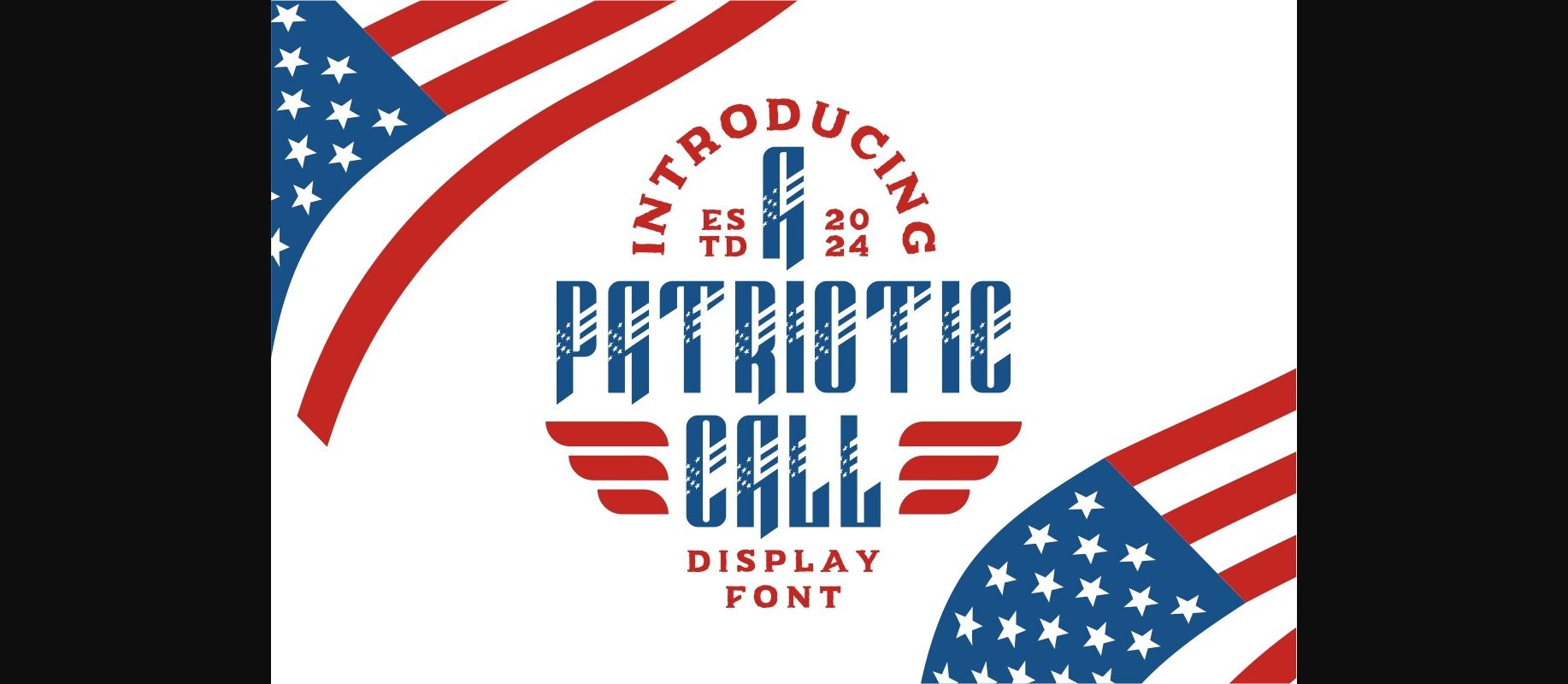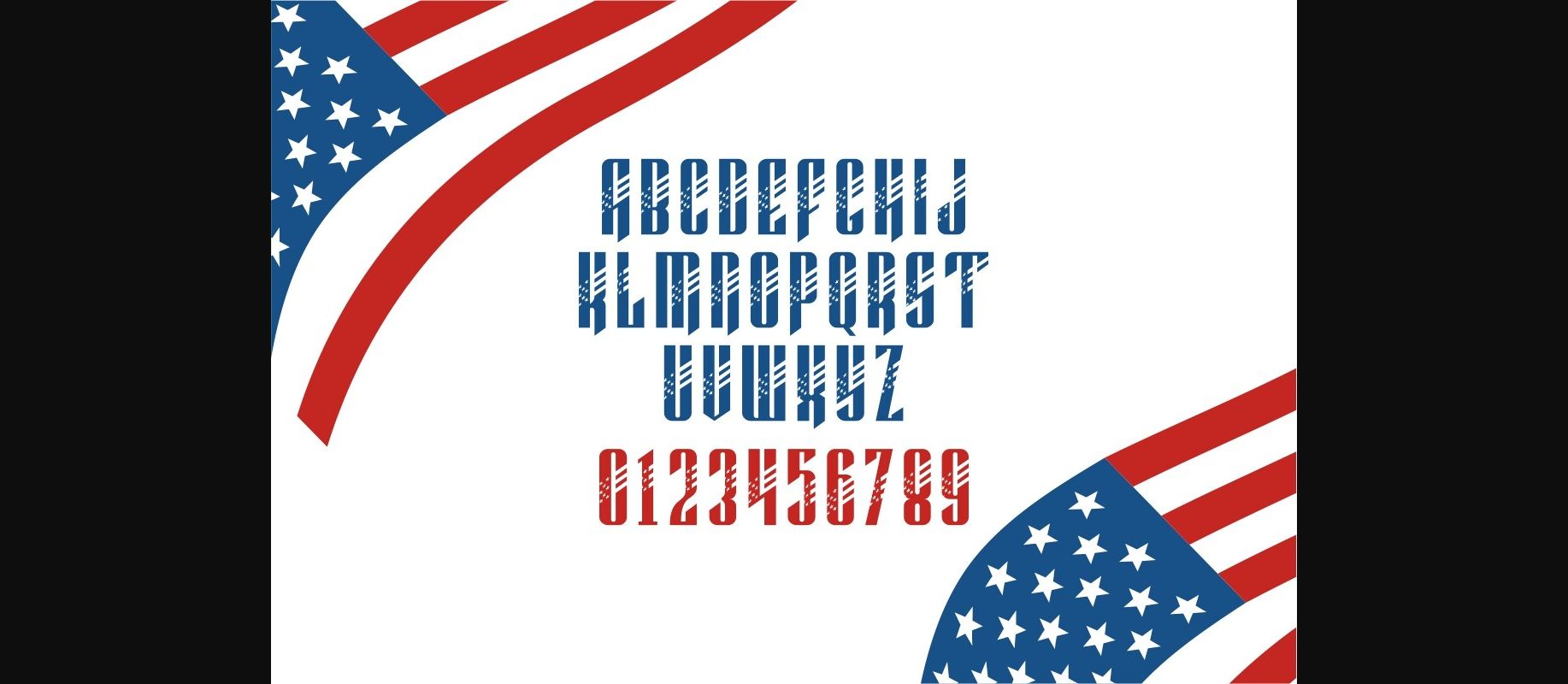
A Patriotic Call Font
About A Patriotic Call Font
A Patriotic Call is a spirited decorative font that proudly showcases the essence of patriotism. With stars and stripes integrated into the letters, it’s a visual celebration of national pride. Ideal for projects that evoke a sense of unity and loyalty, this font adds a touch of Americana charm. Whether crafting posters, banners, or any design calling for a patriotic touch, A Patriotic Call is your go-to choice for a bold and expressive display. Let your words resonate with the spirit of the stars and stripes.